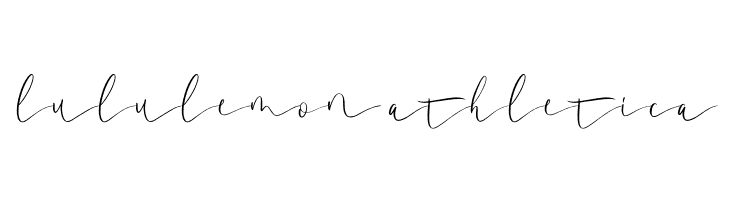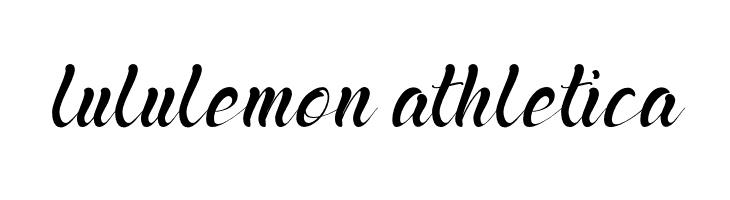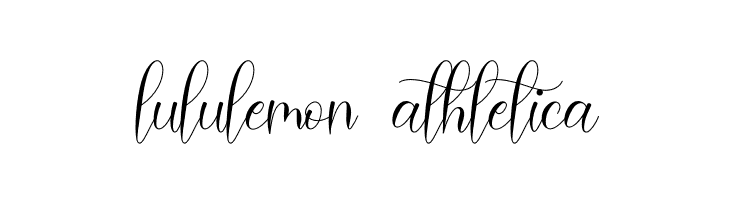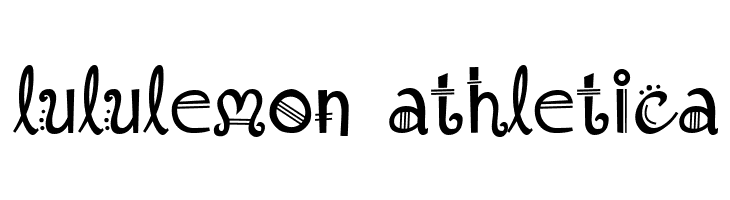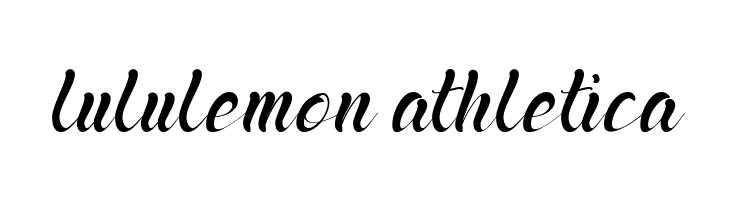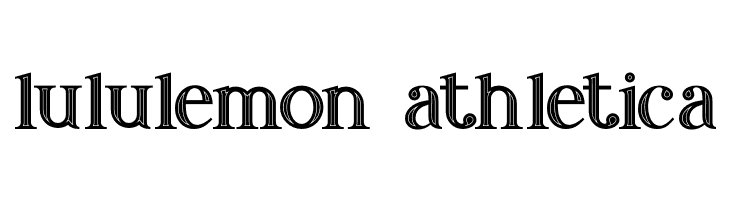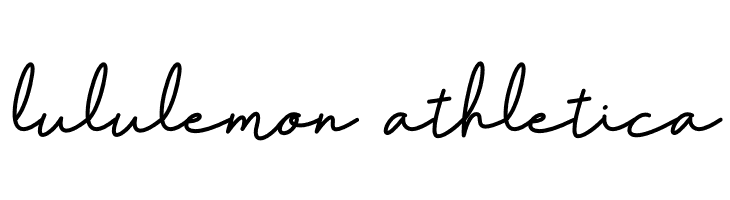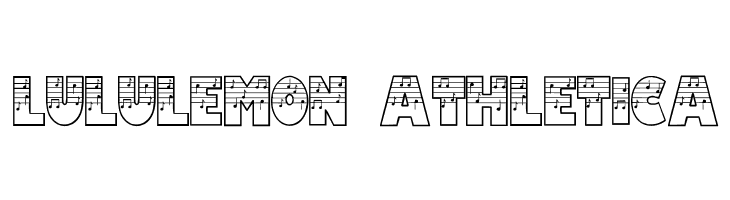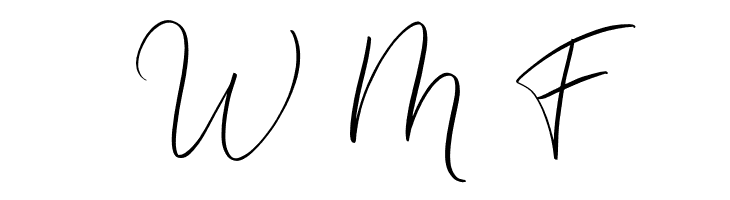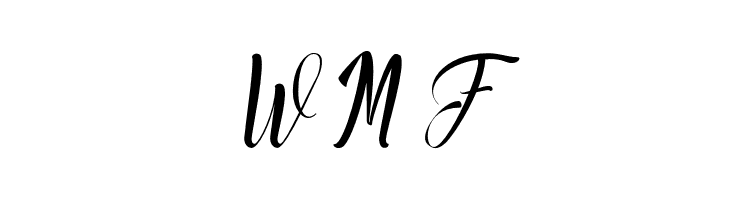
An elegant and flowing script font with graceful curves and delicate strokes.
A flowing, cursive script with elegant, sweeping strokes and decorative flourishes.
An ornate and decorative typeface with intricate detailing and flourishes.
A decorative and artistic font with intricate details and whimsical embellishments.
An elegant and decorative font with intricate inline details and unique flourishes.
An elegant inline serif font with swirling serifs and decorative details.
Elegant cursive script with a handwritten feel.
An elegant and ornate script font with flowing cursive letters.
An elegant, flowing script font with sophisticated curves and loops.